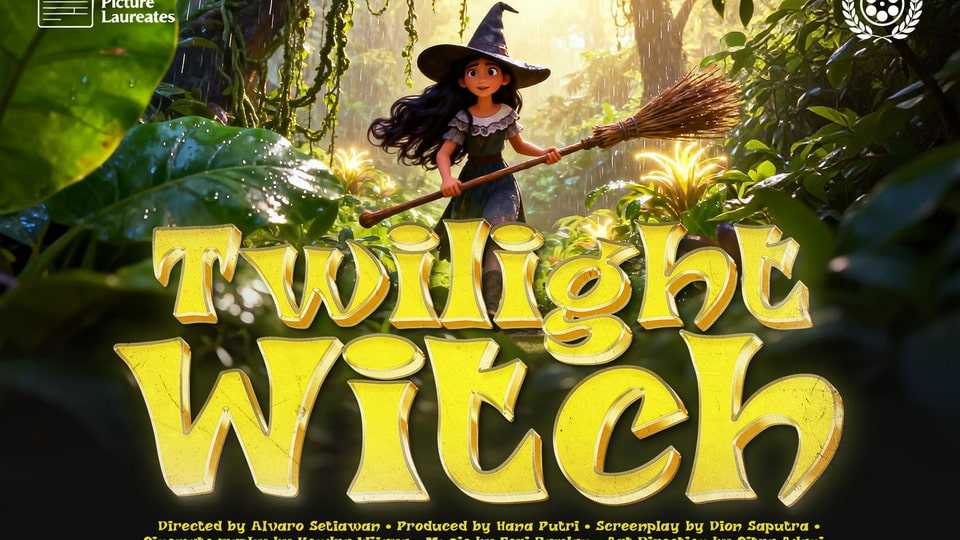
Download Twilight Witch font, a bold fantasy display typeface with hand-crafted curves and whimsical shapes inspired by magical storybook worlds.
Designer: Typesee Typefoundry